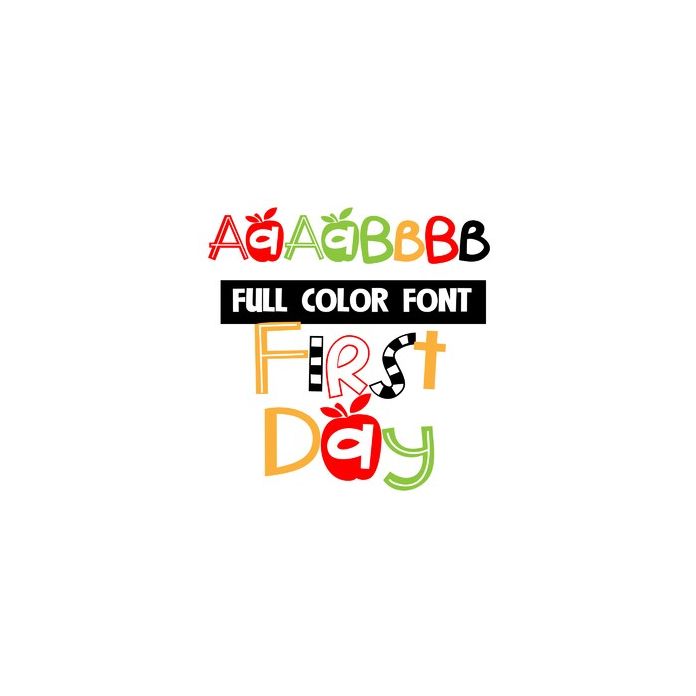
This full-color font features a limited color palette and apples throughout. There is a secondary color of each letter you can access through your system's or Silhouette's glyph map.